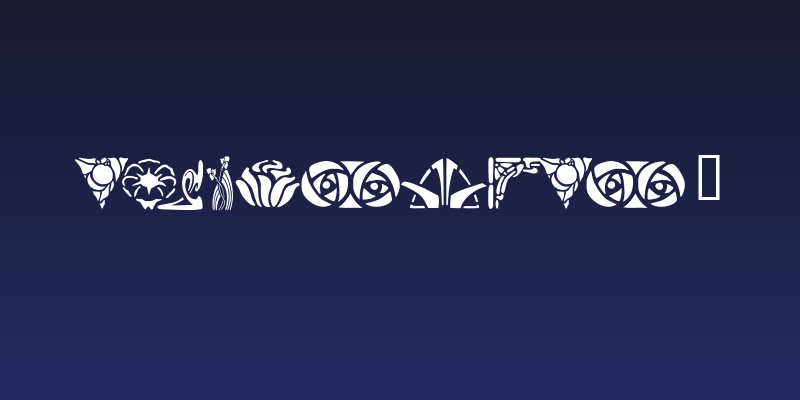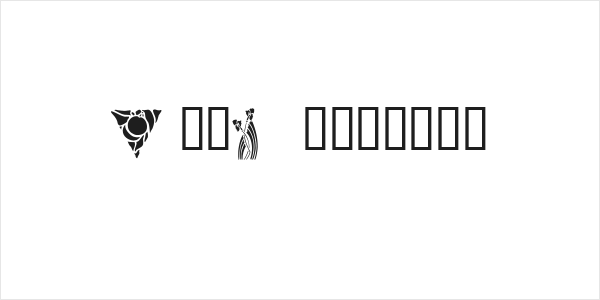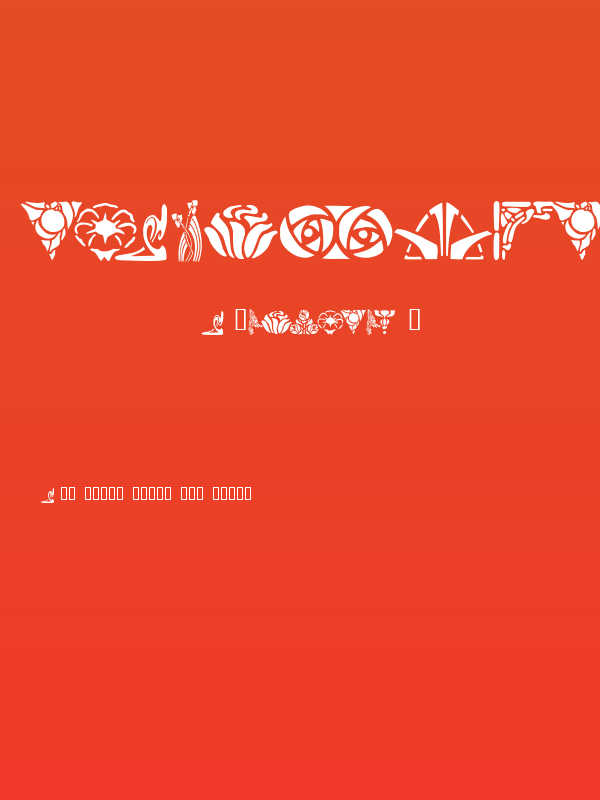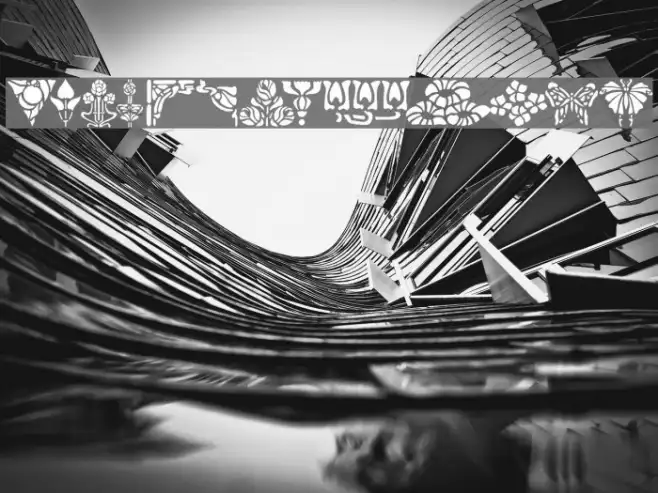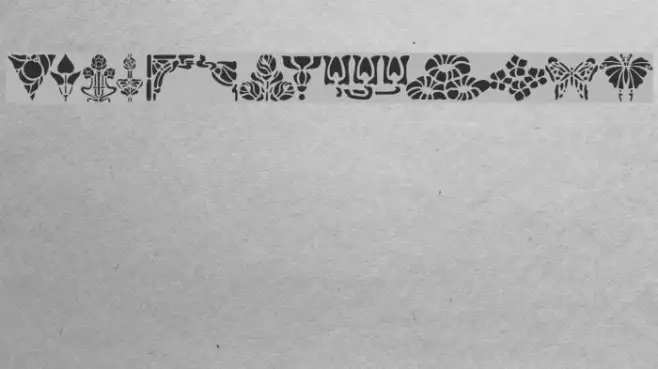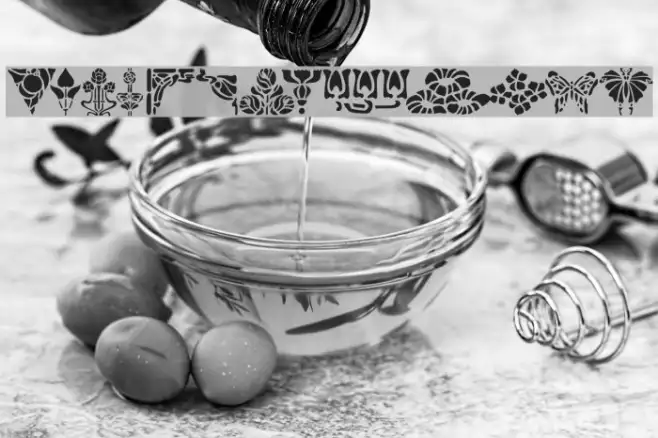
ArtNouveau1 Font
ArtNouveau1 Description
This decorative font is inspired by the Art Nouveau movement, characterized by its intricate and ornamental design elements. Each character is adorned with elaborate floral and organic motifs, creating a sense of elegance and artistic flair. The font captures the essence of the early 20th-century design aesthetic, with its flowing lines and nature-inspired patterns. It is ideal for projects that require a touch of vintage charm and sophistication, making it perfect for invitations, posters, and branding that seeks to evoke a sense of history and artistry.